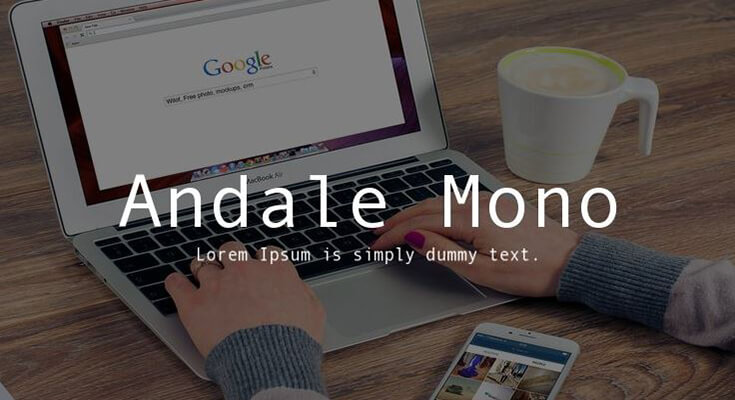
Andale Mono Font is a monospaced sans serif typeface that’s designed to stand apart from the crowd. Use the narrow monospace font for titles, fonts, posters, or any projects
Monotype Imaging, Inc. holds all rights to this font family since they first created it in 1993. While Steve R. Matteson is known as the primary designer of it.
The designer has specially made it for coding and development purposes. This is why you will get an impressive look as we found in Coding Fonts.
Andale Mono’s combination of monospacing and sans serif design makes it a practical and stylish choice for those who need a clear, easy-to-read font for coding, writing, or other design projects.
This monospaced design makes it a popular choice for writing and reading code, as it helps ensure that each character takes up the same amount of space.
Andale Mono can be used for various graphic design applications, including logos, posters, and packaging design, where a clean and modern look is desired.
With its great design, you can create book covers, special event cards, business cards, product designs, product packaging, unique signs, website development, and more.